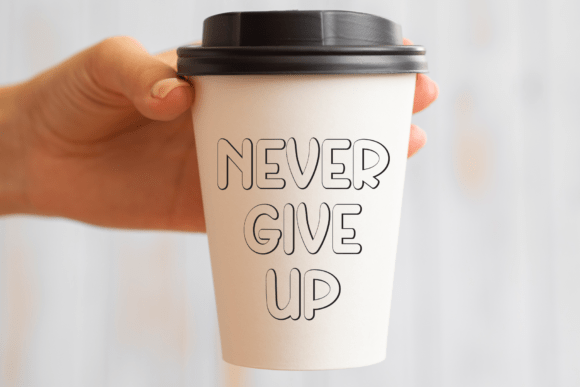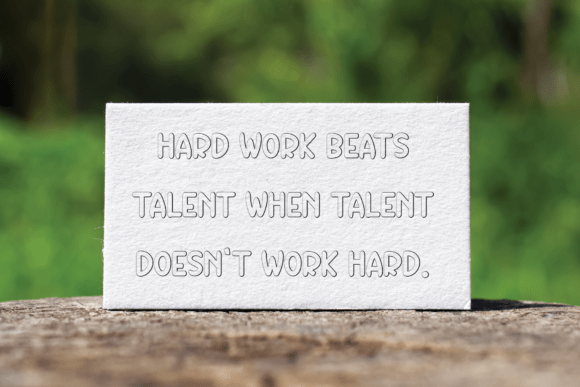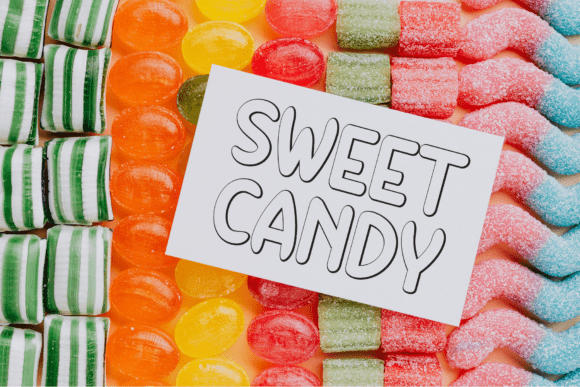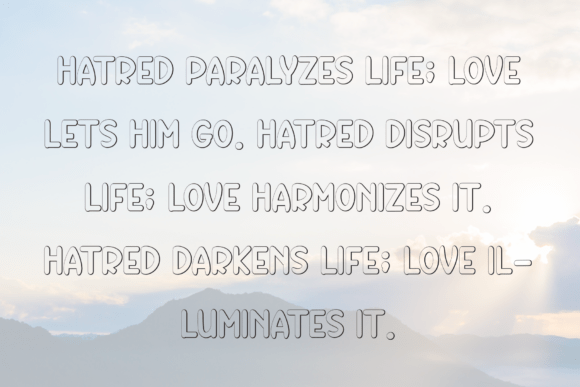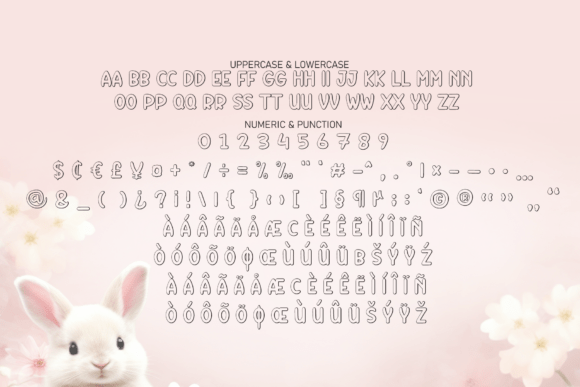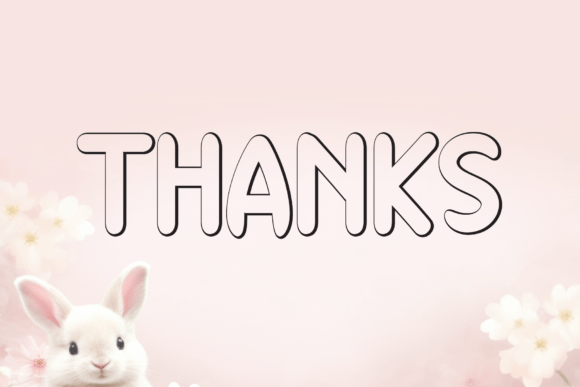
Get Ready to Spring into Creativity with the Bunny December Font
As a designer, there’s nothing quite like the thrill of landing on the perfect font to elevate a project. It’s that moment when the words start to dance on the page, and your message comes alive. For those special moments, you need a font that’s as playful as it is effective. That’s where the Bunny December Font comes in – a delightfully chunky typeface that’s sure to put a smile on your face and your client’s.
This ultra-thick, rounded font is a game-changer for designers working on projects that require a sense of soft, cuddly joy. From toy packaging to children’s book titles, nursery decor, and playful winter holidays, the Bunny December Font is the perfect choice to bring your message to life. Its bold presence and gentle curves make it an invaluable addition to any designer’s toolkit.
- Unique Characteristics: Whimsical, handwritten style with a touch of playfulness, ideal for creating eye-catching titles and headings.
Bunny December Font Review
As a designer, I was excited to dive into the Bunny December Font and see what it had to offer. Overall, I found it to be a cute and playful font that’s perfect for projects with a whimsical or festive feel. ✨
- Charming aesthetic: The font’s rounded edges and Easter-inspired design elements make it a great choice for projects like greeting cards, party invitations, and more.
- High legibility: Despite its playful nature, the font is surprisingly easy to read, making it suitable for body text as well as headlines.
- Wide character set: The font includes a wide range of characters, including international characters, which is a big plus for designers who work with diverse clients or projects.
However, there are a few limitations to consider. ⚠️
- Limited versatility: While the font is perfect for certain types of projects, it may not be the best choice for more formal or professional designs.
- Not ideal for small text: The font’s rounded edges can make small text appear blurry or difficult to read.
- No bold or italic weights: If you need to create emphasis or contrast in your design, you’ll need to rely on other fonts or creative workarounds.
Overall, I’d say the Bunny December Font is a fun and charming addition to any designer’s toolkit. While it may not be the best choice for every project, it’s a great option for designers who want to add a touch of whimsy or festivity to their designs.
Bunny December Font is perfect for any festive holiday design, including:
– Christmas and New Year’s Eve invitations and decorations
– Holiday party invitations and decorations
– Gift tags and wrapping paper designs
– Custom holiday graphics and designs